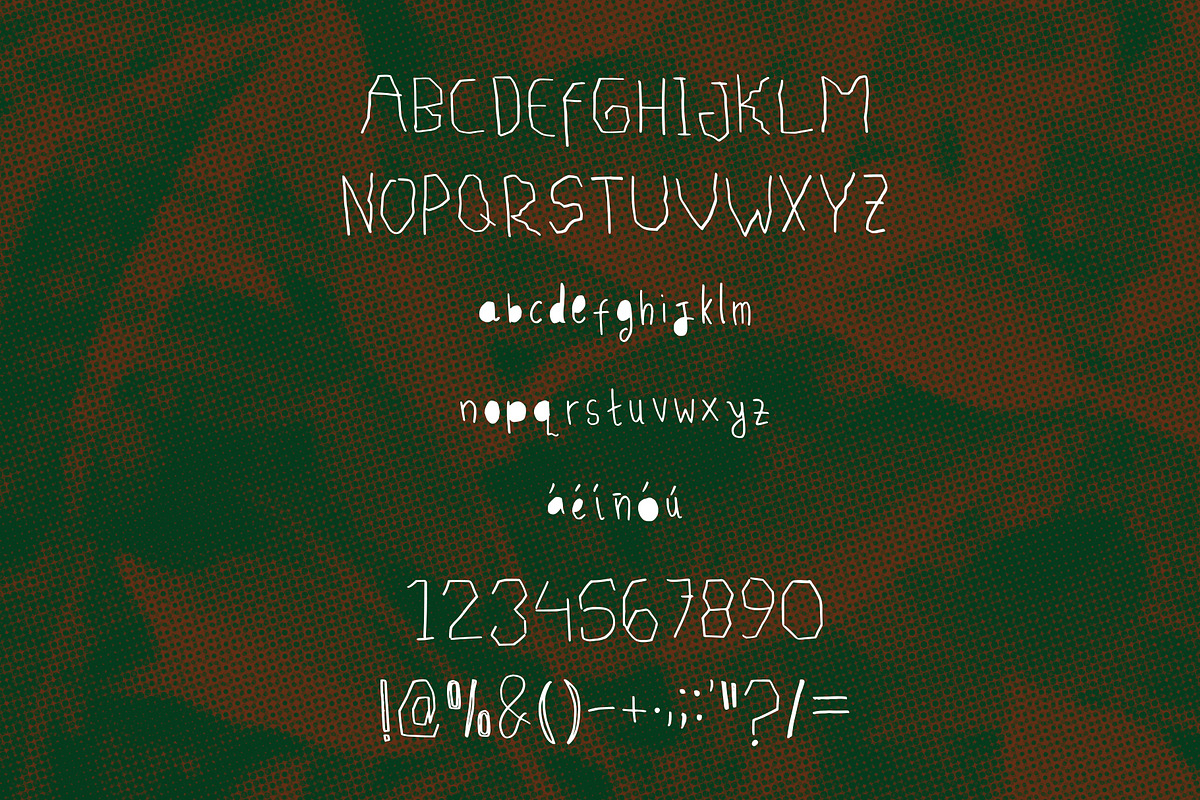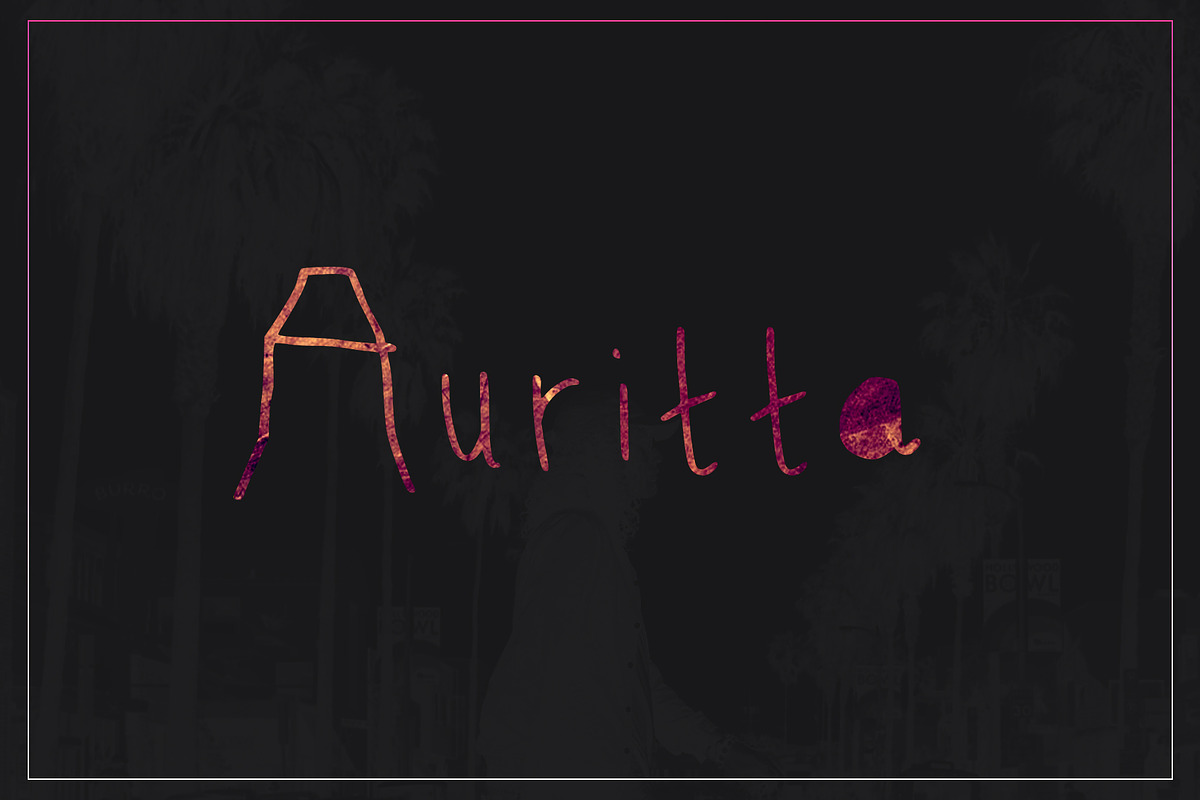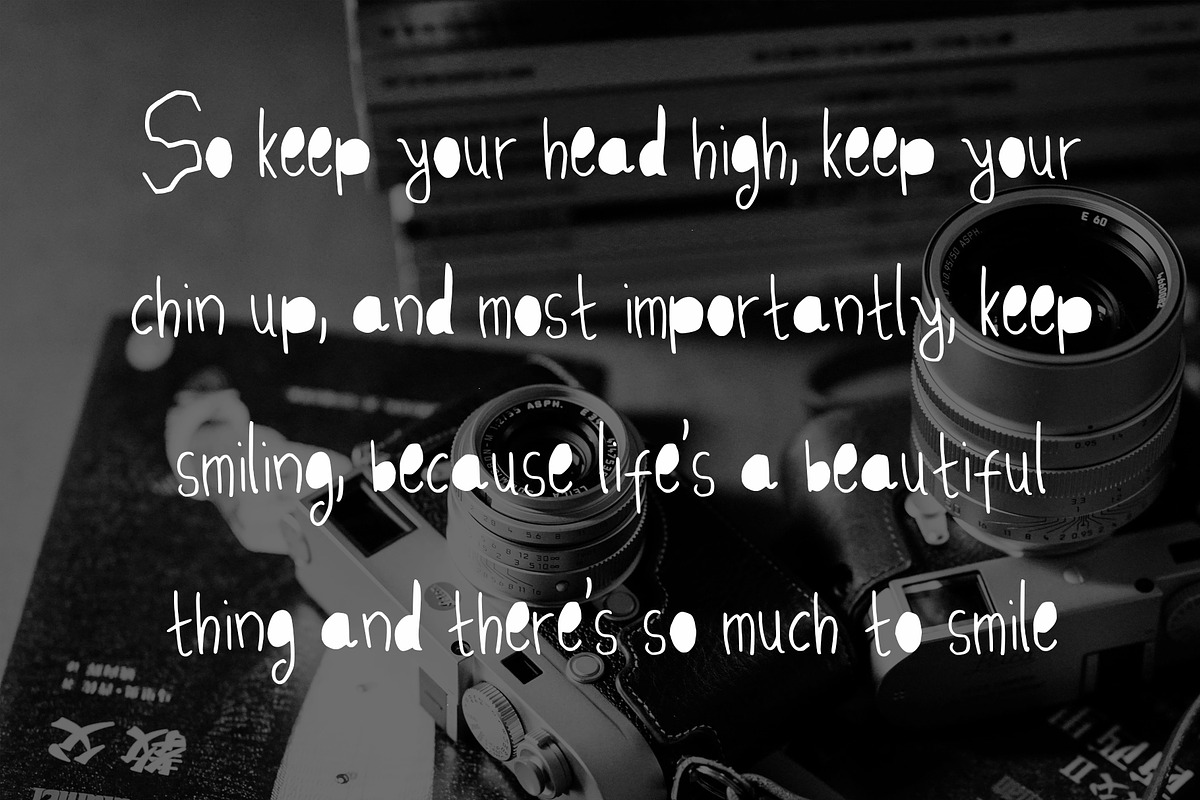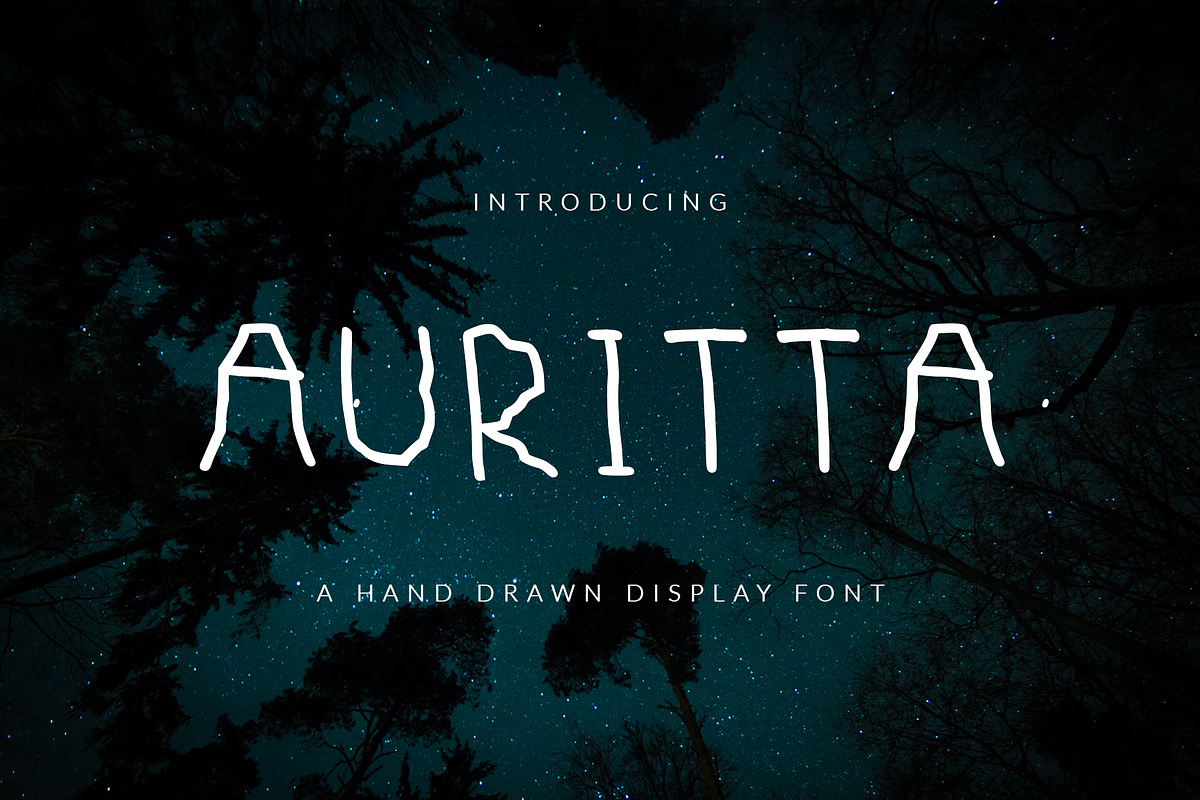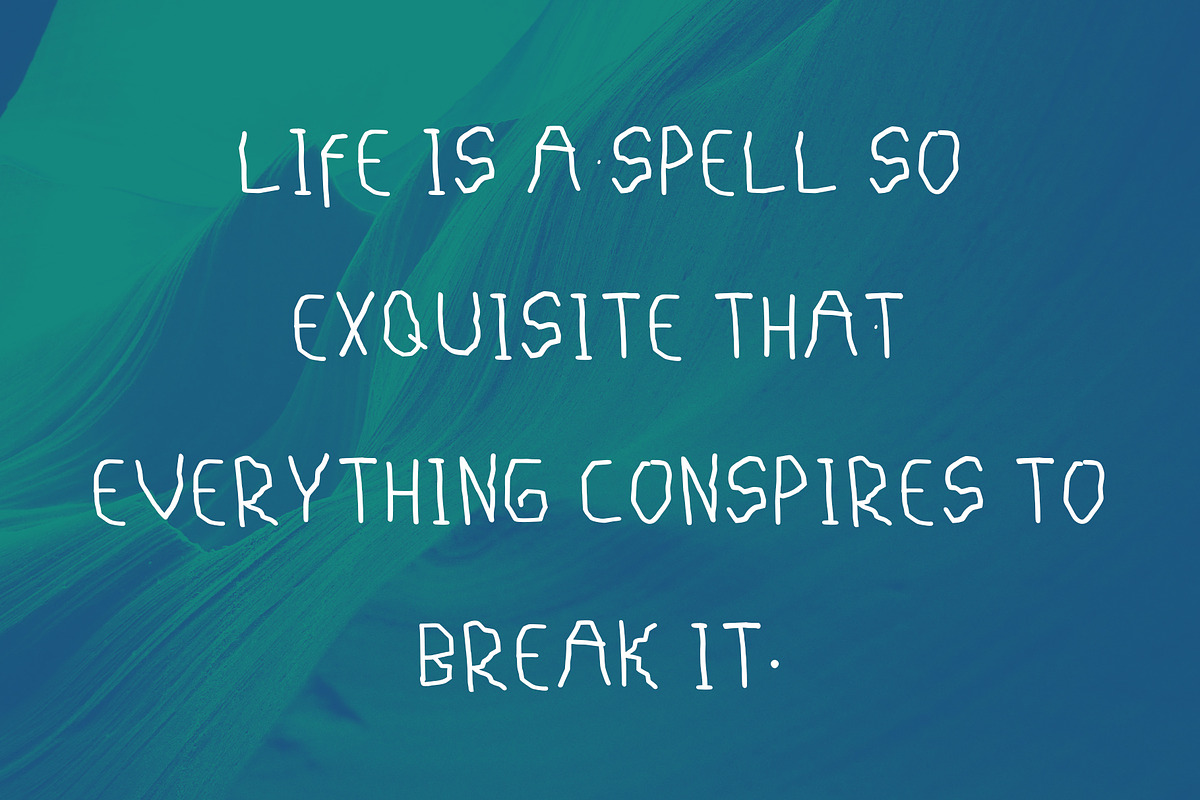
Auritta Font Display Sans
Sans serif hand-drawn display font called Auritta was designed for modern, childish, unique and other style also fit for Kids story and book.
Auritta Font Display Sans by NadaNora fits naturally into Branding, posters, packaging, typography.